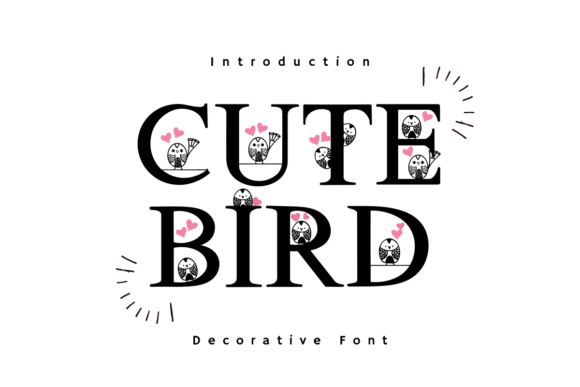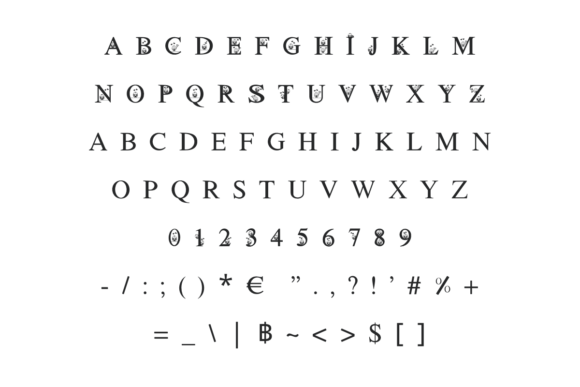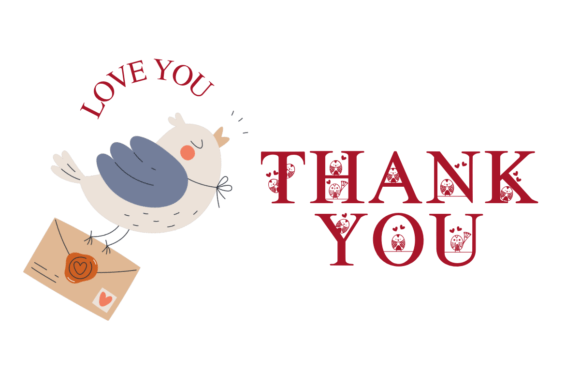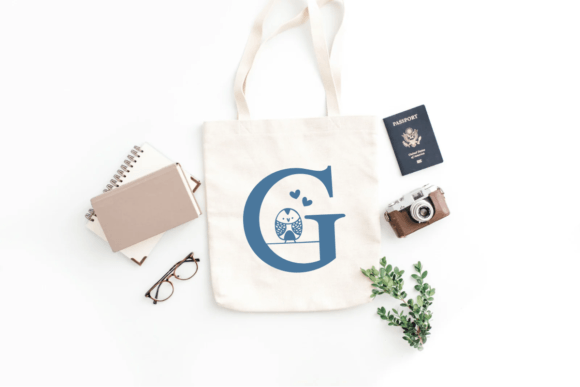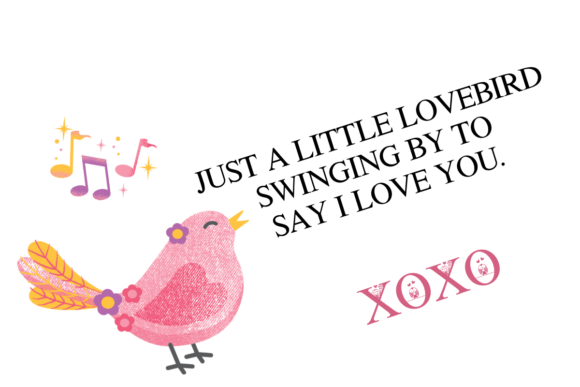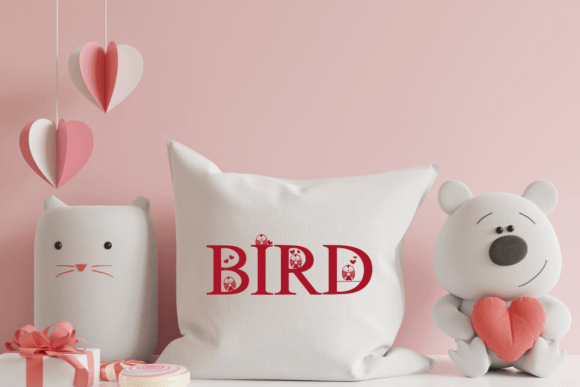
Cute Bird Font
Cute Bird is a fun and decorative font featuring adorable little birds on each letter. Perfect for adding a playful and charming touch to any project!